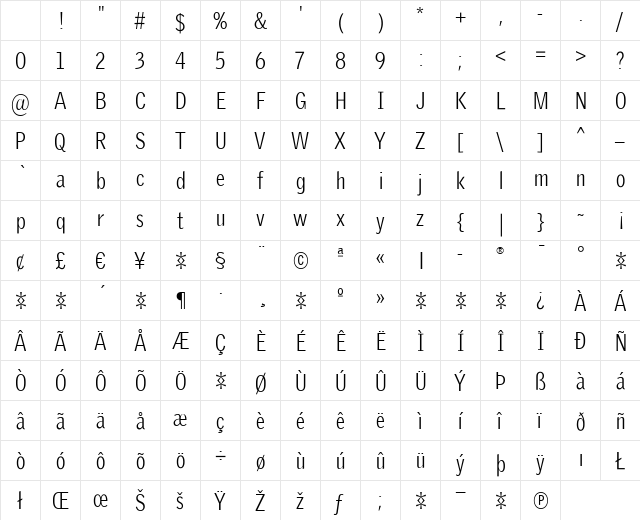
Complete GriffithGothicCond Regular glyph index. Displaying only characters natively supported by GriffithGothicCond Regular font.
GriffithGothicCond takes a clean, functional approach - its unadorned letterforms prioritise legibility and work reliably across screen and print environments. Its narrow stance lets it pack a punch even in space-constrained designs.
Font Pairing: Works well alongside a characterful serif or display font that can carry the expressive load while GriffithGothicCond handles the functional copy.
Pro Tip: Use GriffithGothicCond tightly set in headlines and banners - its condensed proportions make it ideal for maximum impact in minimum horizontal space.